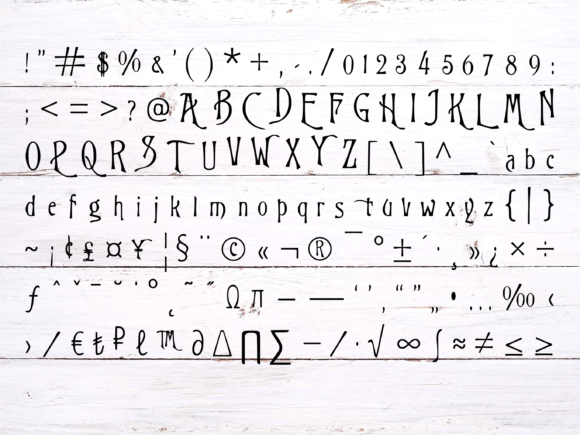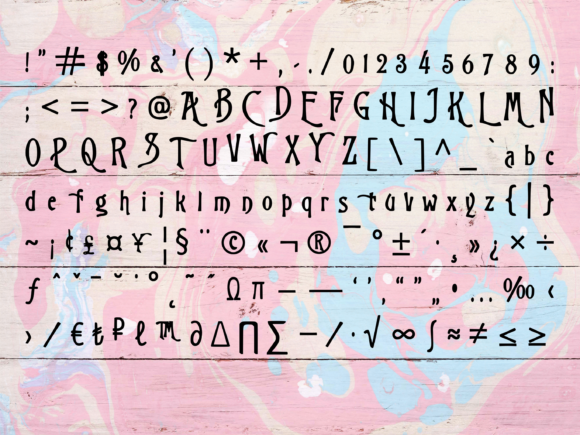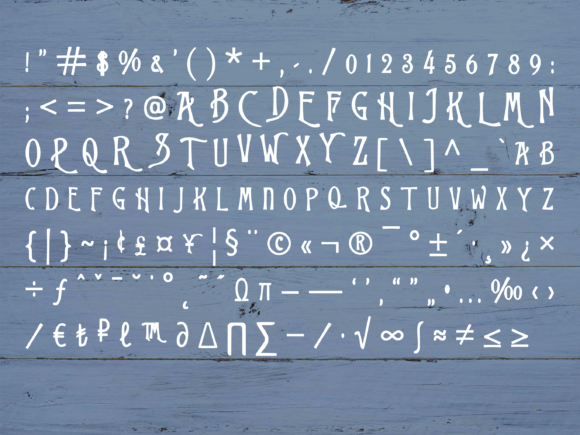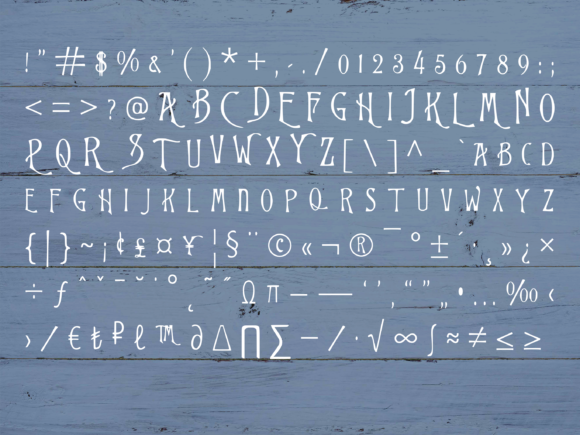
Introducing Amsterdam Font: A Vintage Display Font for Creative Design Projects
Are you a designer or crafter looking for a unique and stylish font to elevate your creative projects? Look no further than Amsterdam Font, a vintage display font that’s perfect for a wide range of applications. In this article, we’ll explore the features and benefits of Amsterdam Font, and show you how it can be used to add a touch of elegance and sophistication to your designs.
What is Amsterdam Font?
Amsterdam Font is a carefully crafted vintage display font that’s inspired by the classic typography of the past. With its bold and eye-catching design, it’s perfect for creating stunning logotypes, headlines, and titles that grab attention and leave a lasting impression. Whether you’re working on a corporate identity, brand identity, or creative design project, Amsterdam Font is the perfect choice.
Key Features of Amsterdam Font
So, what makes Amsterdam Font so special? Here are just a few of its key features:
- Vintage style: Amsterdam Font has a unique vintage style that’s reminiscent of classic typography from the past. Its bold and eye-catching design makes it perfect for creating stunning headlines and titles.
- High-quality design: Amsterdam Font is carefully crafted to ensure that it’s of the highest quality. Its smooth lines and curves make it perfect for use in a wide range of design projects.
- Versatile: Amsterdam Font is incredibly versatile, and can be used in a wide range of design projects, from corporate identity and brand identity to apparel, posters, music, movies, games, and more.
- Easily readable: Despite its bold design, Amsterdam Font is easily readable, even at small sizes. This makes it perfect for use in body text, as well as headlines and titles.
Use Cases for Amsterdam Font
So, what can you use Amsterdam Font for? The possibilities are endless! Here are just a few ideas to get you started:
- Logotype: Use Amsterdam Font to create a stunning logotype that perfectly represents your brand or business.
- Headline font: Amsterdam Font is perfect for use as a headline font, adding a touch of elegance and sophistication to your designs.
- Corporate identity: Use Amsterdam Font to create a cohesive corporate identity that perfectly represents your brand or business.
- Brand identity: Amsterdam Font is perfect for use in brand identity design, helping to create a unique and recognizable brand image.
- Apparel industry: Use Amsterdam Font to create stunning apparel designs that are sure to turn heads.
- Poster design: Amsterdam Font is perfect for use in poster design, adding a touch of elegance and sophistication to your designs.
- Music, movie, and game design: Use Amsterdam Font to create stunning music, movie, and game designs that perfectly capture the essence of your project.
- Magazine covers: Amsterdam Font is perfect for use in magazine cover design, adding a touch of elegance and sophistication to your designs.
- Book design: Use Amsterdam Font to create stunning book designs that perfectly capture the essence of your story.
- Comic and cartoon design: Amsterdam Font is perfect for use in comic and cartoon design, adding a touch of playfulness and humor to your designs.
- YouTube and Instagram: Use Amsterdam Font to create stunning YouTube and Instagram designs that perfectly represent your brand or business.
- Website design: Amsterdam Font is perfect for use in website design, adding a touch of elegance and sophistication to your website.
Why Choose Amsterdam Font?
So, why should you choose Amsterdam Font for your design projects? Here are just a few reasons:
- Unique and stylish: Amsterdam Font is a unique and stylish font that’s sure to add a touch of elegance and sophistication to your designs.
- High-quality design: Amsterdam Font is carefully crafted to ensure that it’s of the highest quality, making it perfect for use in a wide range of design projects.
- Versatile: Amsterdam Font is incredibly versatile, and can be used in a wide range of design projects.
- Easily readable: Despite its bold design, Amsterdam Font is easily readable, even at small sizes.
| Author | The Tenacious Type Studio |
In conclusion, Amsterdam Font is a vintage display font that’s perfect for designers and crafters looking to add a touch of elegance and sophistication to their creative projects. With its unique and stylish design, high-quality craftsmanship, and versatility, Amsterdam Font is the perfect choice for a wide range of design projects. So why wait? Download Amsterdam Font today and start creating stunning designs that perfectly capture the essence of your brand or business!